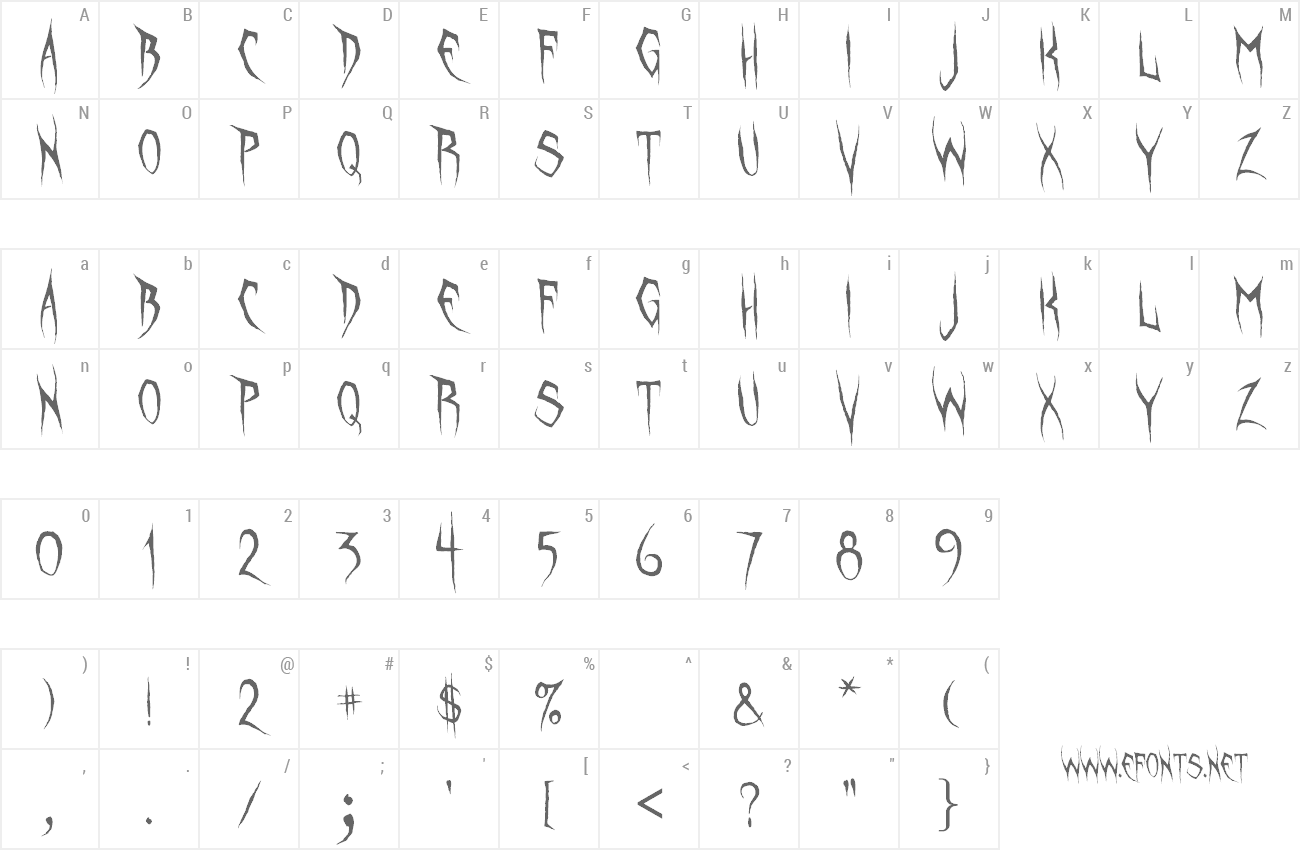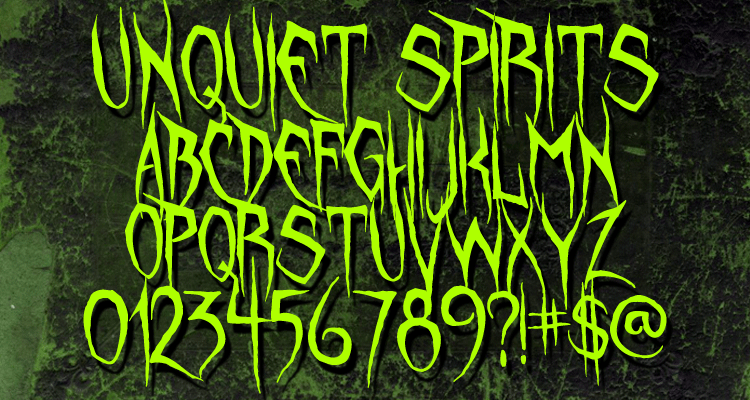
| Font name: | Unquiet Spirits |
| Author: | Sinister Fonts |
| Note by Sinister Fonts | |
| Created 2010, hand-lettered as a more controlled version of my other font Ghastly Panic. |